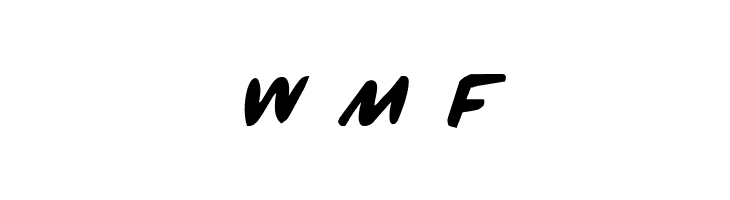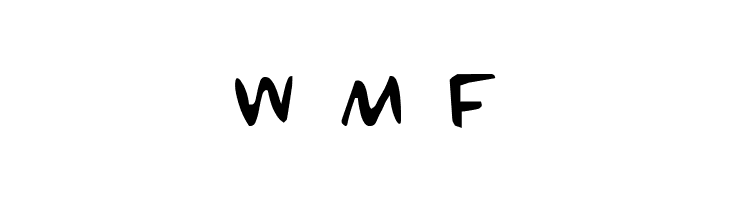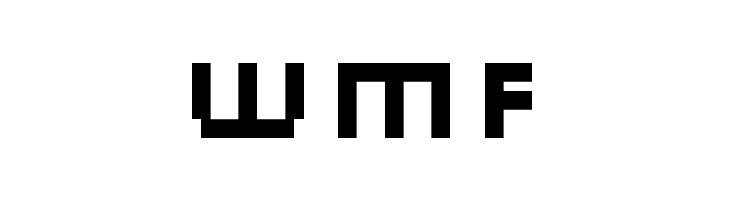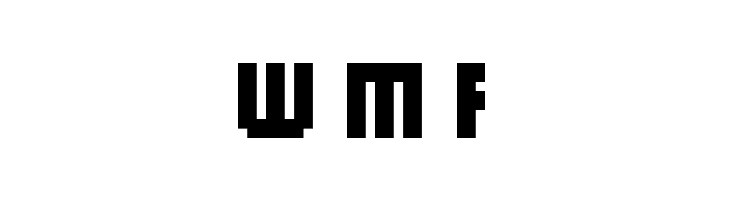
techkr Font
A pixelated, retro-style font with a blocky, digital appearance.
101! Alpha Pikture 'Bet Font
Nght's Place - www.crosswinds.net/~nghtmvs/font/fonts1.html
A playful, illustrative font with embedded images for each character, ideal for educational use.
Grov AB Bold Italic Font
A bold, italicized font with angular lines and a modern, dynamic style.
Wallau Zier Bold Font
Font by Dieter Steffmann
A bold, blackletter font with sharp, angular lines and high contrast.
Squarodynamic 02 Font
Font by www.fontalicious.com
A geometric, pixelated font with a digital, retro aesthetic.
So Normal Font
Font by Apostrophic Lab
A modern, geometric font with tall, narrow characters and consistent stroke width.
Free Monospaced Bold Oblique Font
GNU FreeFont - savannah.gnu.org/projects/freefont/
A bold, oblique monospaced font with a modern and dynamic style.
Junari ClawsRegular Font
An artistic and abstract font with claw-like strokes and fluid shapes.
SlabSerifWritten Font
A playful handwritten slab serif font with a whimsical and approachable style.
OnKochsRoots Font
Font by Manfred Klein - manfred-klein.ina-mar.com
A bold, angular font with geometric influences, ideal for impactful designs.
beestings bats Font
A playful, cartoon-like font with whimsical characters and a casual handwritten style.
AEZblot by Jon Zittel Font
A playful, hand-drawn font with irregular strokes and whimsical charm.
AEZbasic font Font
A playful, hand-drawn font with bold, sketchy characters.
Cyberwhiz Font
Font by www.fontalicious.com
A bold, geometric font with a futuristic, digital aesthetic.
Highguard New Font
A bold, futuristic font with sharp, angular lines and a geometric structure.
Letter Set A Font
A bold, distressed font with a grunge-like texture for a modern and edgy look.
BM kitchen A10 Font
A modern, pixelated font with a grid-like, digital design.
Petiote Font
A pixelated, retro-style font with a digital, grid-like appearance.
Fantazian Font
Font by Daniel Zadorozny - www.iconian.com
A bold, angular font with a futuristic and geometric design.
Oil Crisis B Font